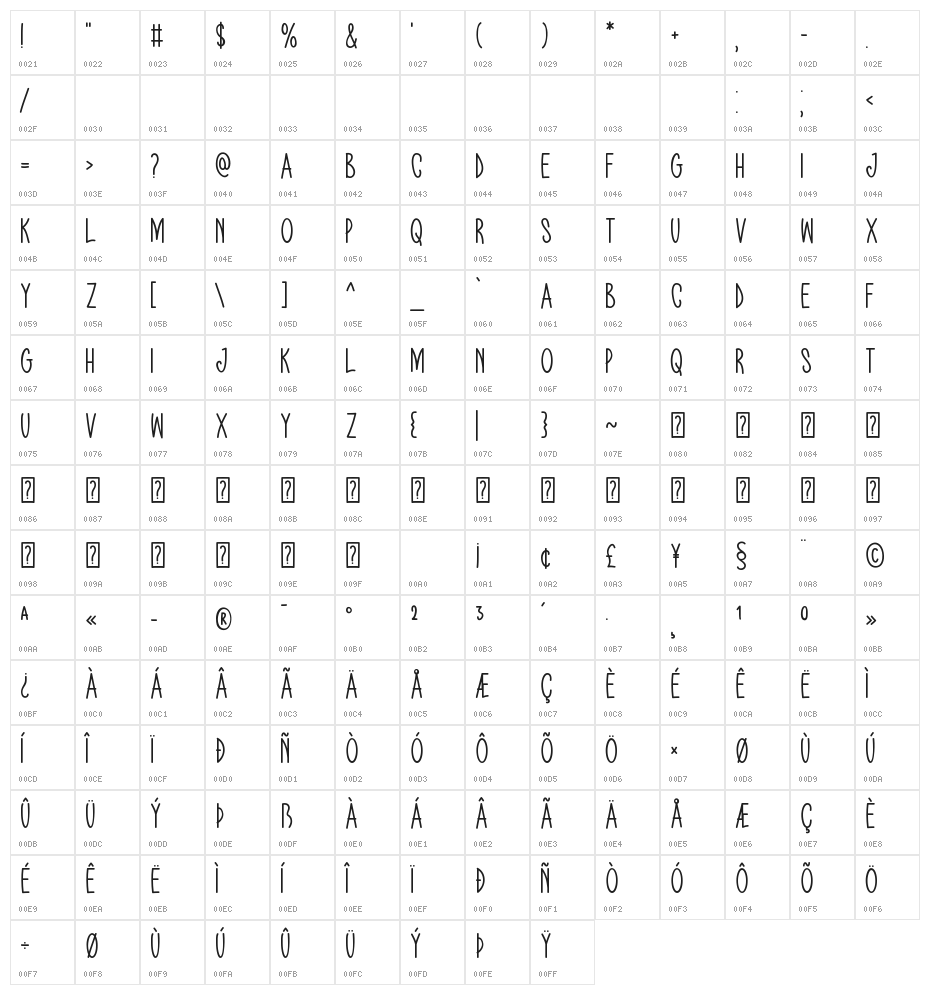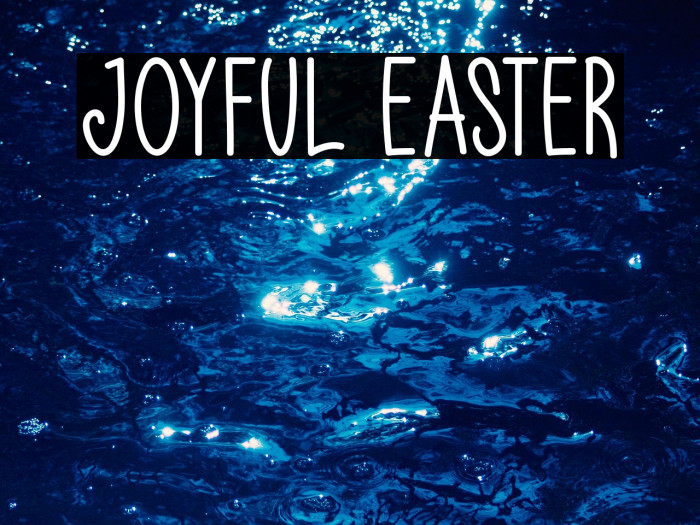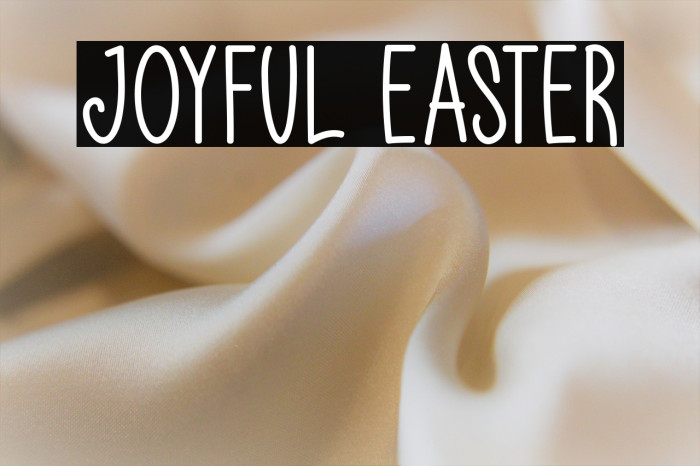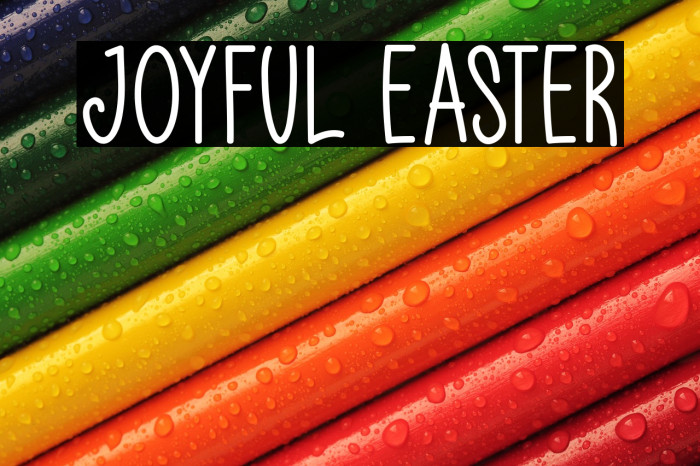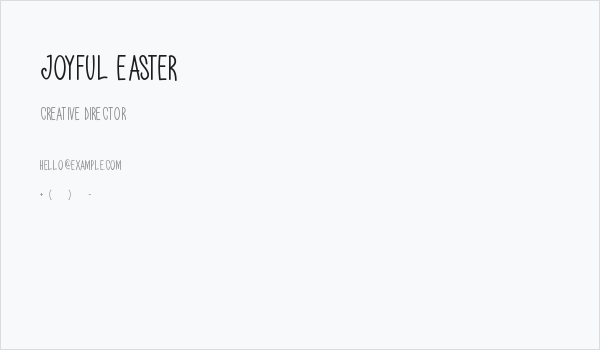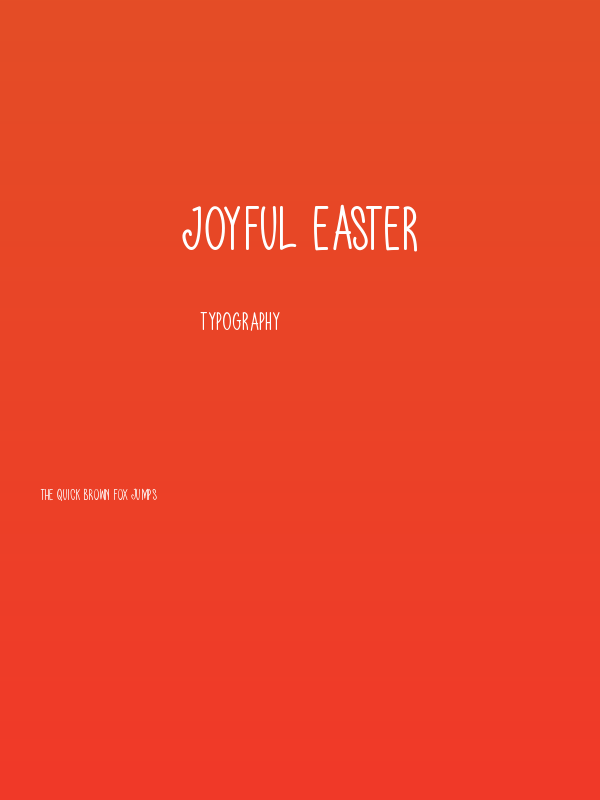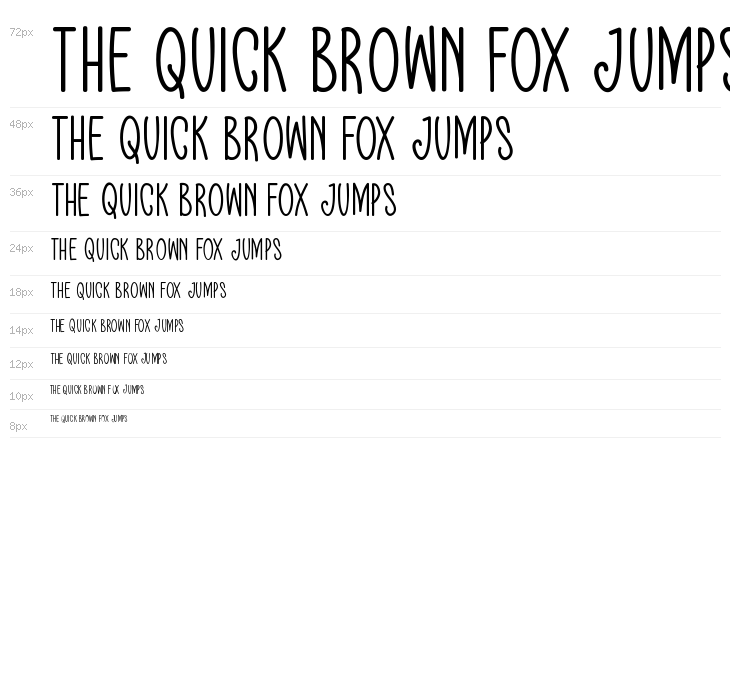
Joyful Easter Font
Joyful Easter Description
A playful, handwritten font with tall, narrow letters and a casual style.
| Overall Style | Playful, Casual |
| Use Case | Headlines, Informal text, Greeting cards |
| Proposed Projects | Greeting cards, children's books, playful branding. |